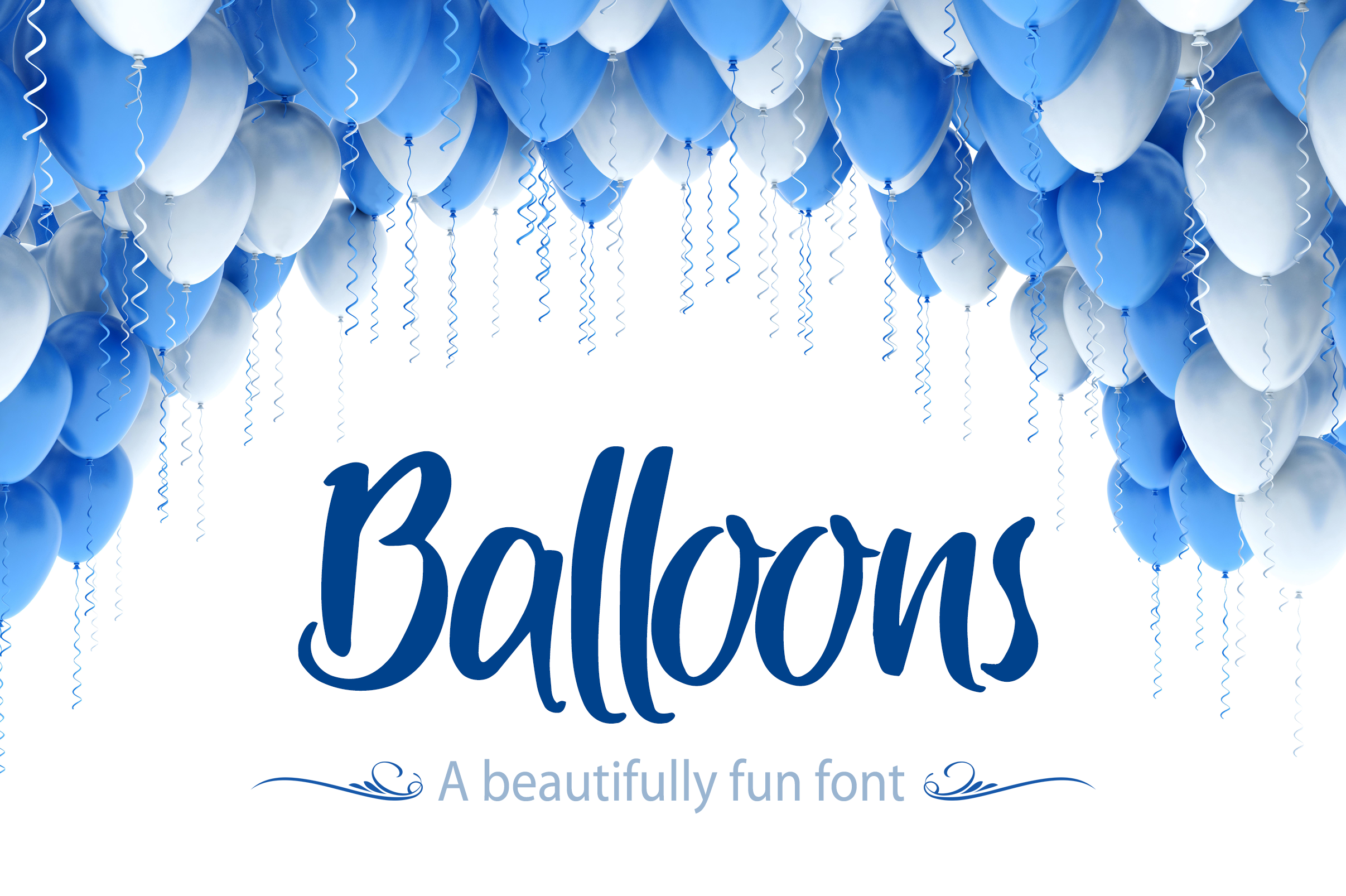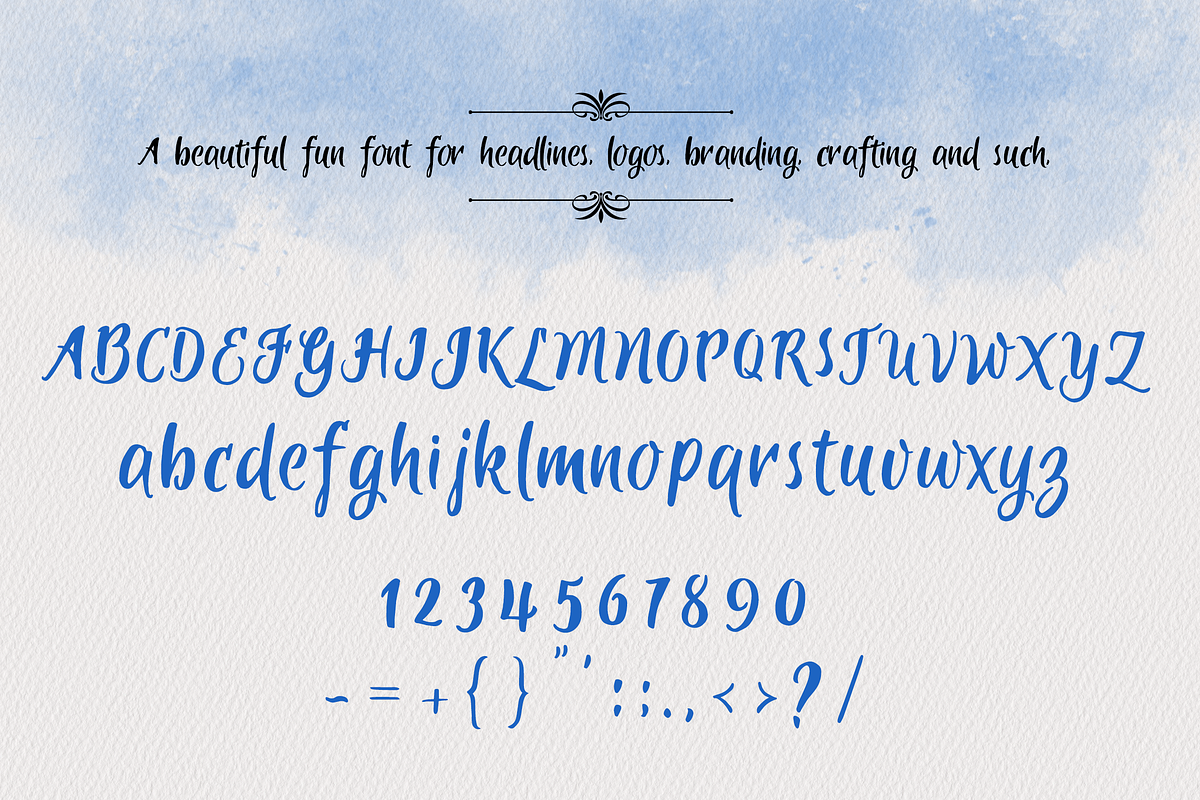
Balloons - A Beautifully Fun Font
Balloons - A Beautifully Fun Font that is perfect for crafting, branding, invitations, weddings and such.
- Capital Letters
- Lowercase letters